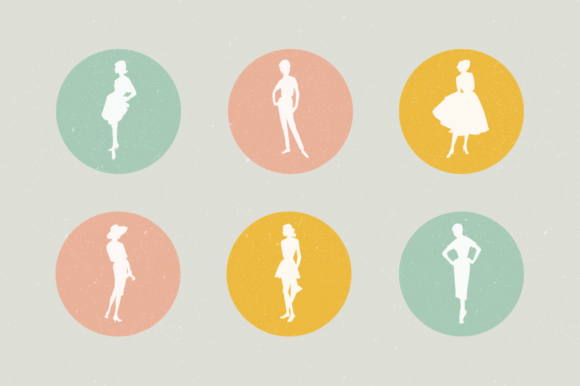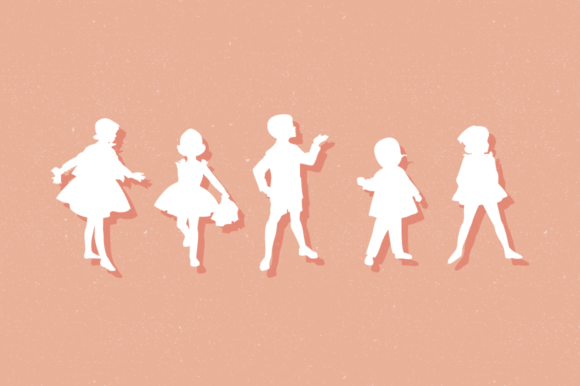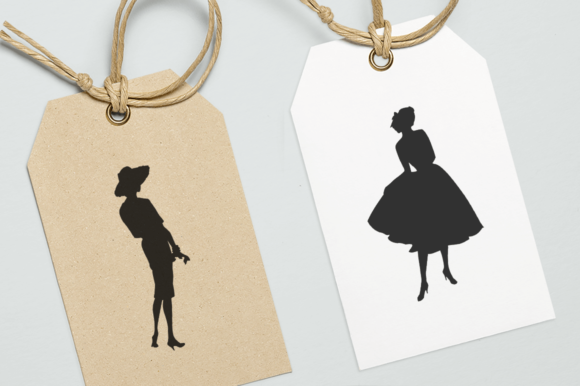
Introduction to Sewing Patterns 3 Font
Have you ever been working on a creative project and suddenly, the perfect image pops into your mind, but you can’t quite find the right design element to bring it to life? This is exactly what happened to me when I stumbled upon the Sewing Patterns 3 Font. As a designer, I’m always on the lookout for unique and high-quality design resources that can elevate my work. And let me tell you, this vintage dingbat is a game-changer.
The Sewing Patterns 3 Font is a treasure trove of 1950s and 60s style silhouettes, featuring ladies’ fashions in uppercase and lowercase letters, as well as children’s styles for the numbers. With its transparent background and high-quality design, this font is perfect for designers looking to add a touch of nostalgia and whimsy to their projects.
Key Features of Sewing Patterns 3 Font
- High-quality vector design with transparent background, ideal for creative projects and design resources.
- Unique and stylish design perfect for sewing enthusiasts and crafters looking for a creative resource.
Honest Review: Sewing Patterns 3 Font
I recently had the chance to work with the Sewing Patterns 3 Font, and I must say it’s been a valuable addition to my design resources. This high-quality font is perfect for designers working on creative projects that require a touch of elegance and sophistication.
- ✨ High-quality design: The Sewing Patterns 3 Font boasts a clear and crisp design that’s perfect for both digital and print projects.
- ✨ Transparent background: The font’s transparent background makes it easy to work with, allowing for seamless integration with other design elements.
While the Sewing Patterns 3 Font is a solid choice for designers, I do have a few minor complaints. The font could benefit from more character variations, and some users may find the limited font sizes a limitation ⚠️. However, these are minor quibbles in an otherwise excellent font.
Overall, I’m impressed with the Sewing Patterns 3 Font, and I’d definitely recommend it to designers looking for a high-quality, versatile font for their creative projects.
– Add a professional touch to your graphics and designs with the Sewing Patterns 3 Font.
– Utilize the high-quality design resource to create stunning graphics and illustrations.
– Elevate your presentations and documents with the Sewing Patterns 3 Font.
To get the most out of the Sewing Patterns 3 Font, try experimenting with different font sizes, colors, and combinations to find the perfect fit for your creative project.